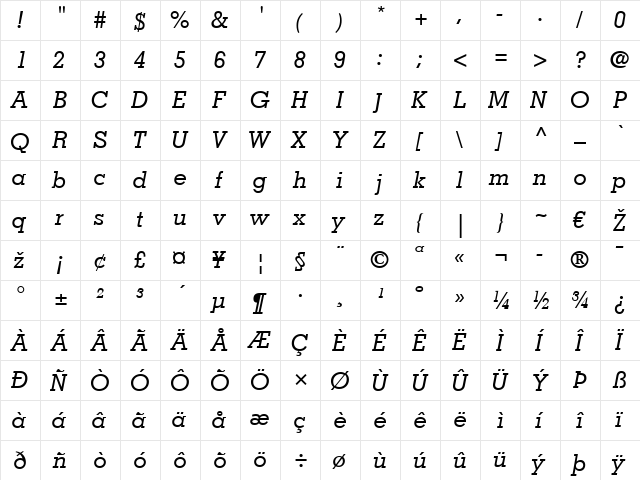
Memphis LT Medium Italic Font Preview
Design Context for Memphis LT Medium Typeface
Memphis LT Medium is a composed and adaptable typeface that performs quietly and consistently across a wide range of design contexts. Its italic angle brings a sense of urgency and motion to the letterforms. Its slender proportions lend an understated elegance to any composition.
Pro Tip: Try Memphis LT Medium for annotation and caption copy alongside an upright companion — the contrast in angle creates a dynamic but ordered typographic system.